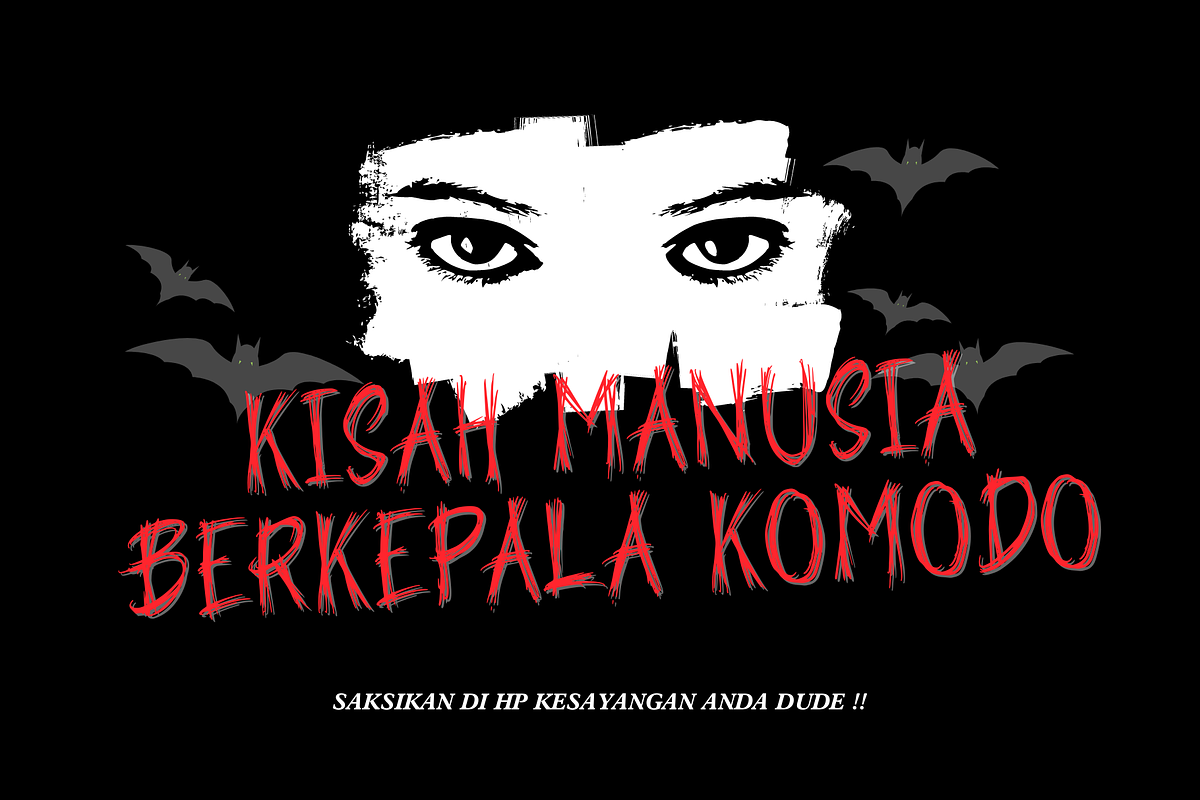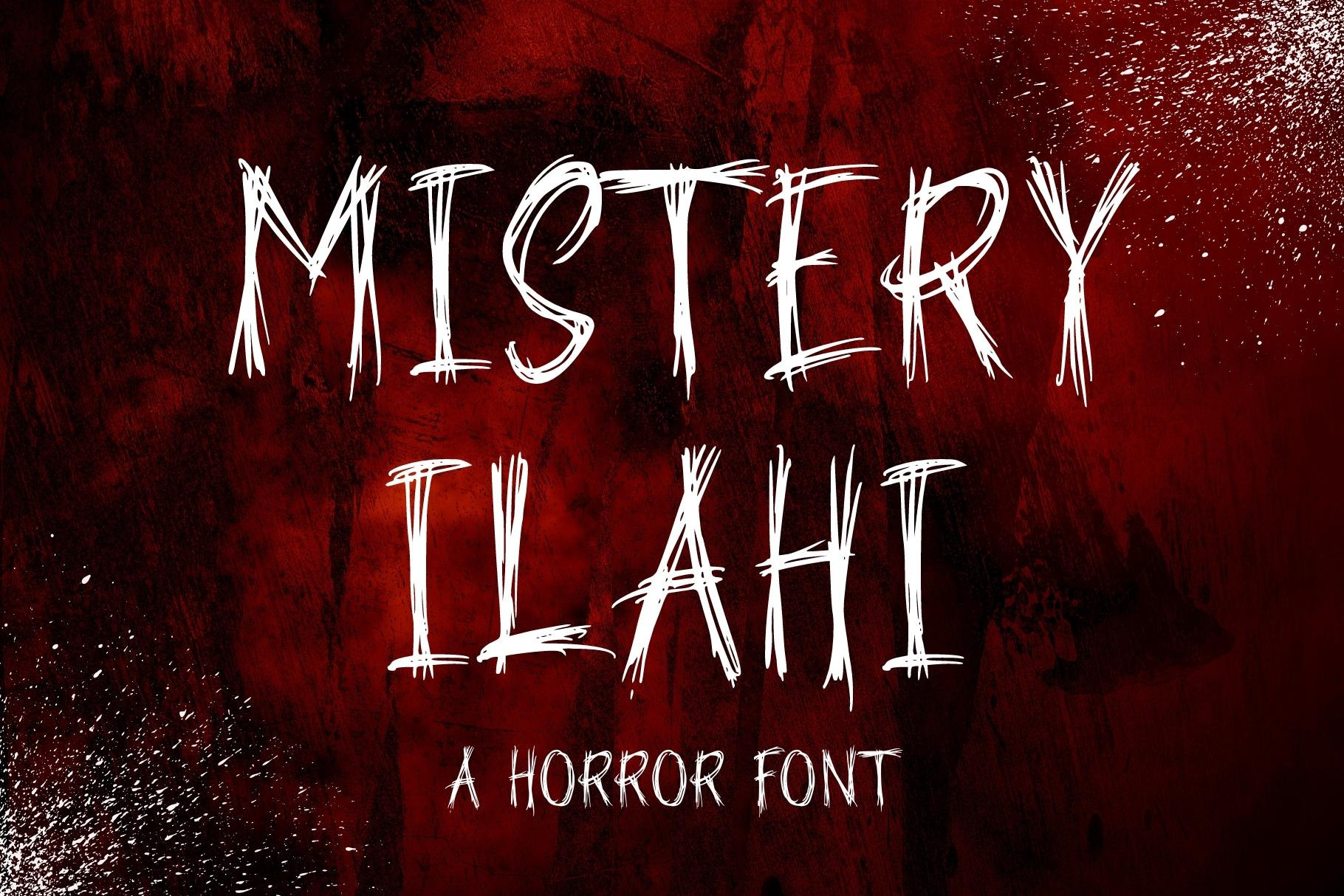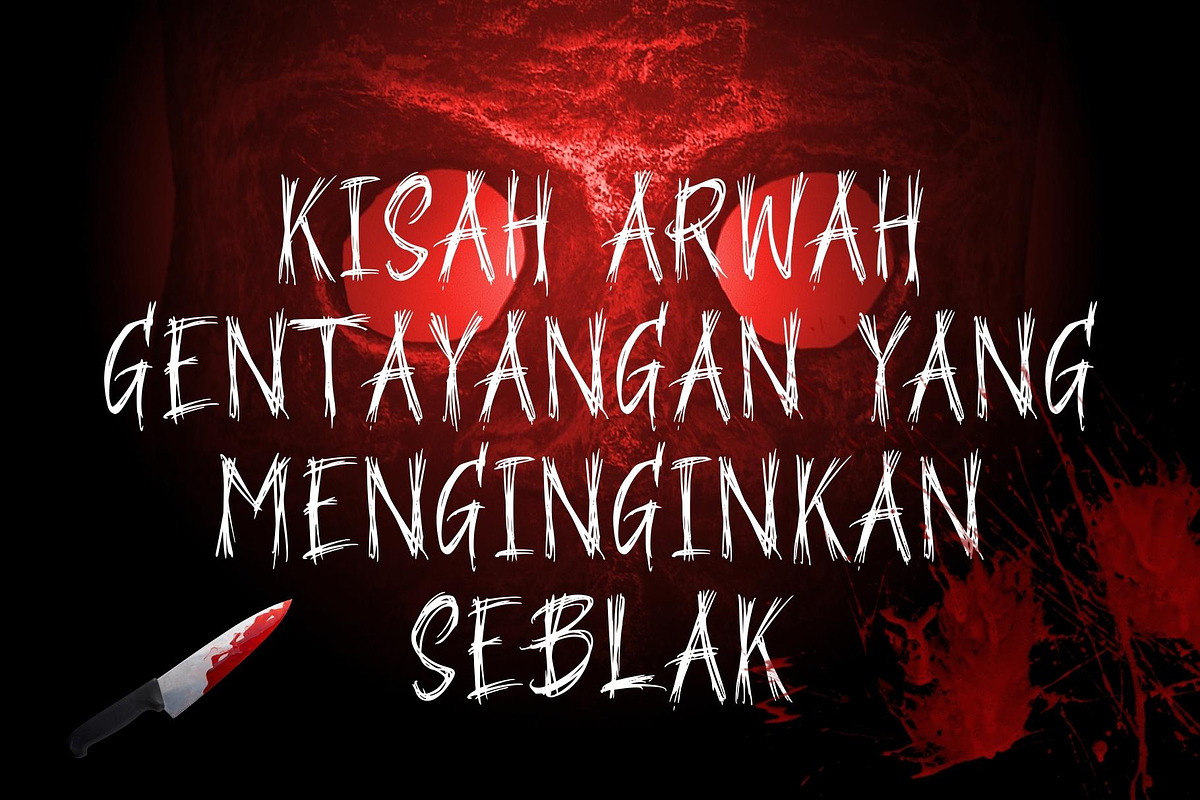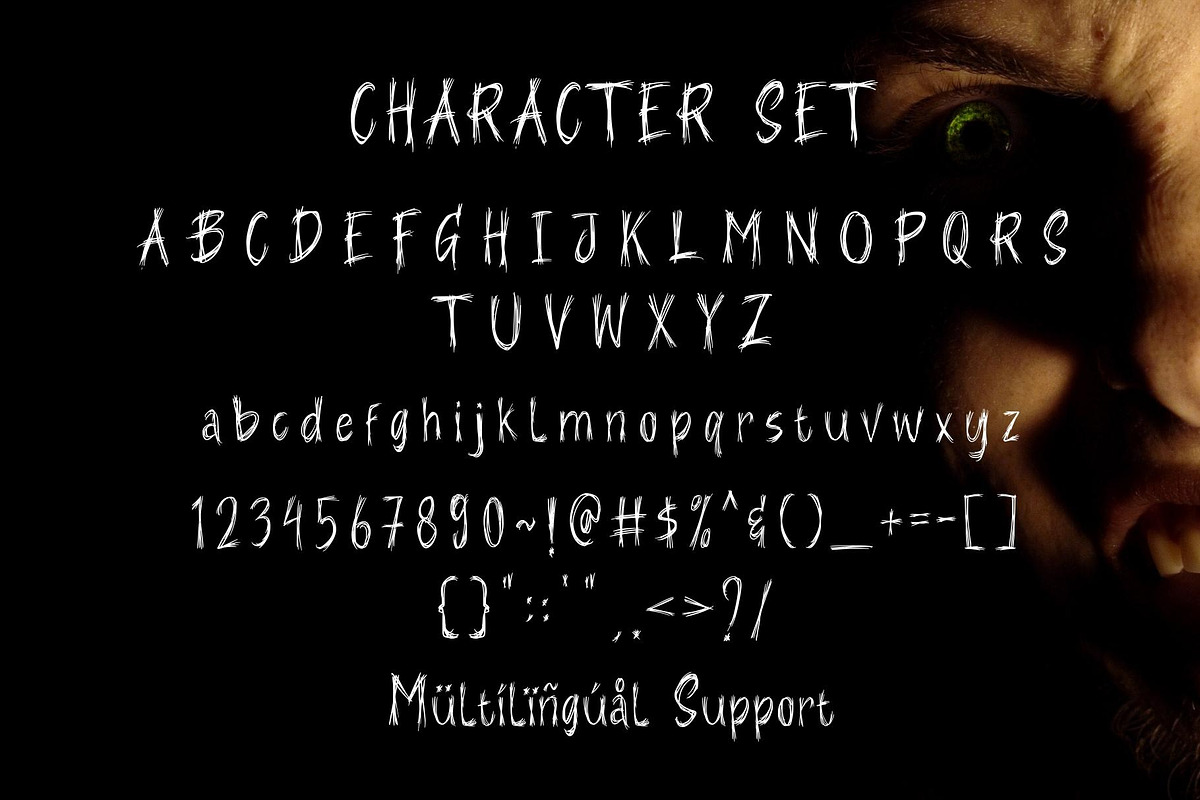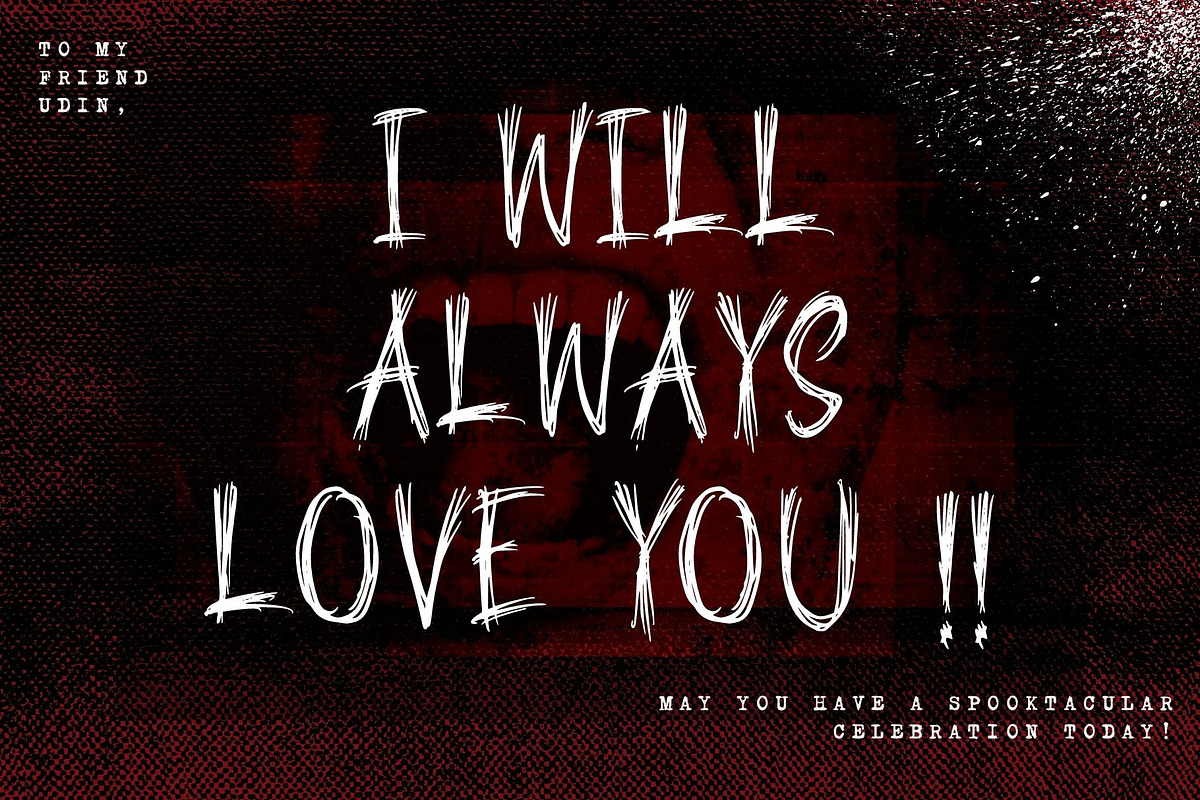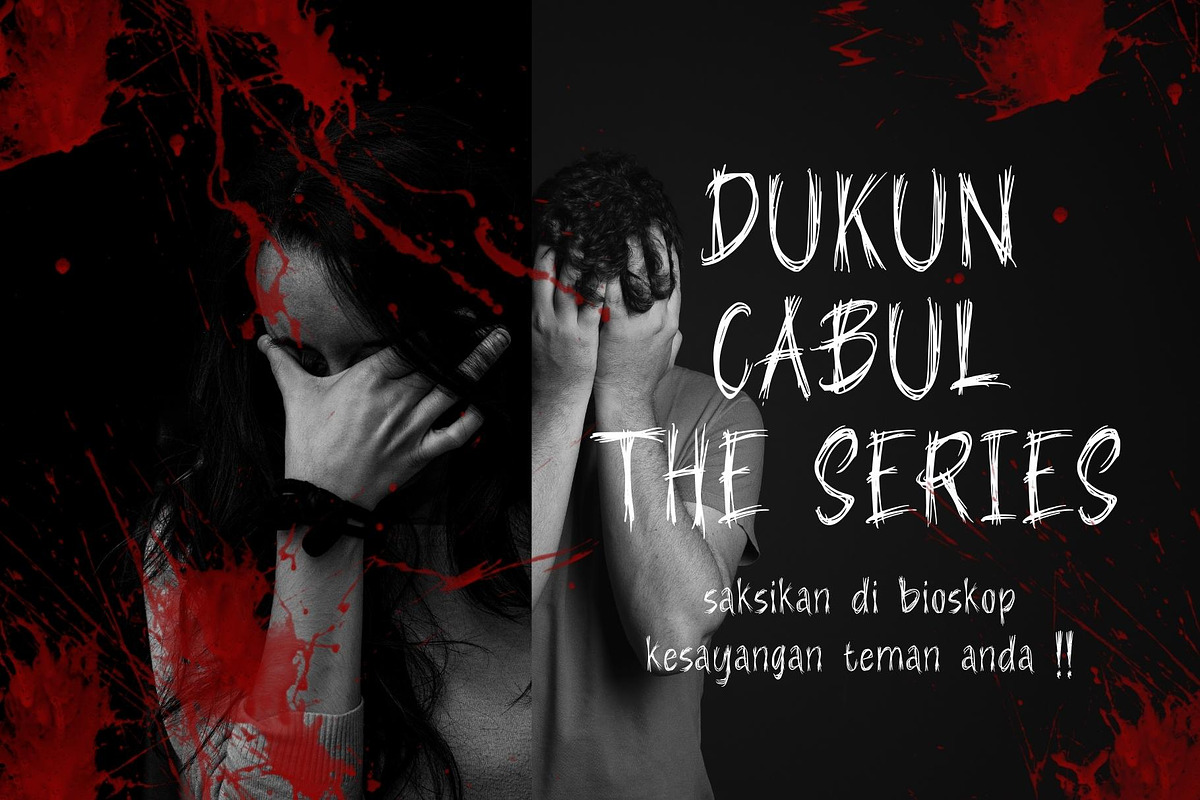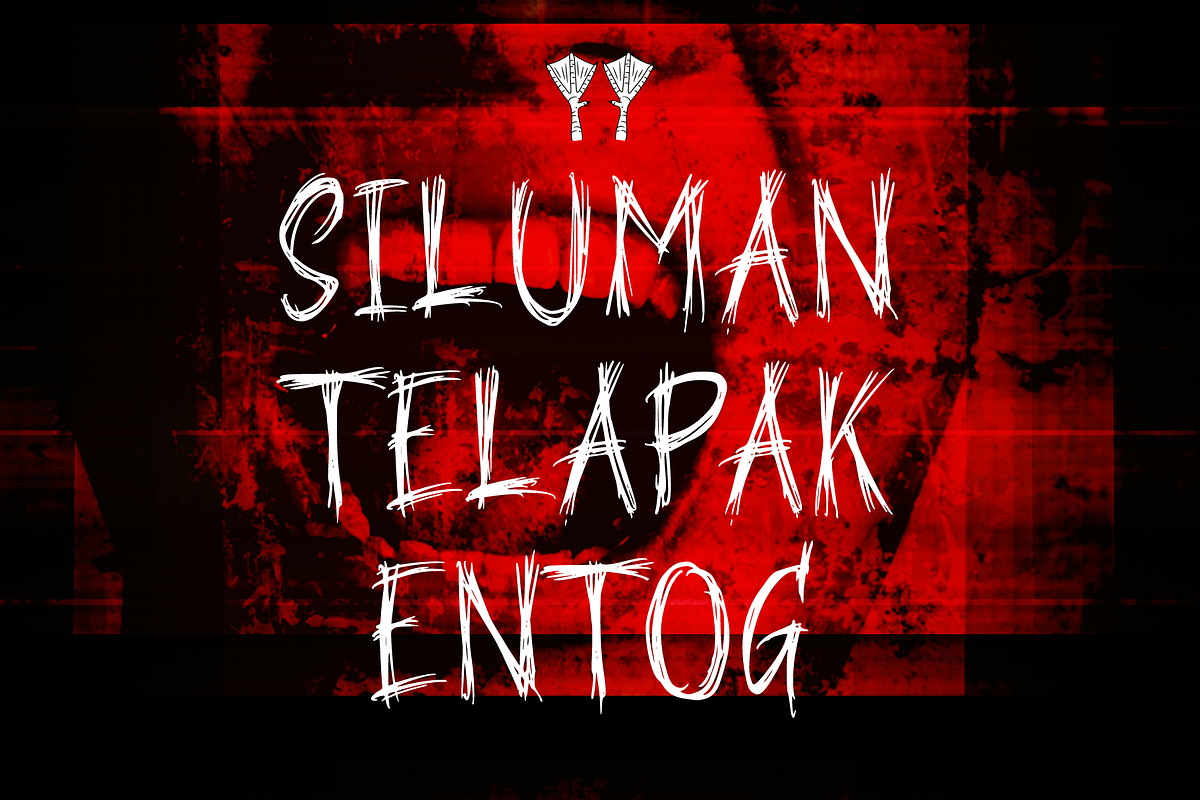
Mistery Ilahi - A Horror Font
Mistery Ilahi is a Horror font that perfect for you any spooky project.
Mistery Ilahi comes with uppercase and lowercase letters, multilingual symbols, numerals, punctuation.